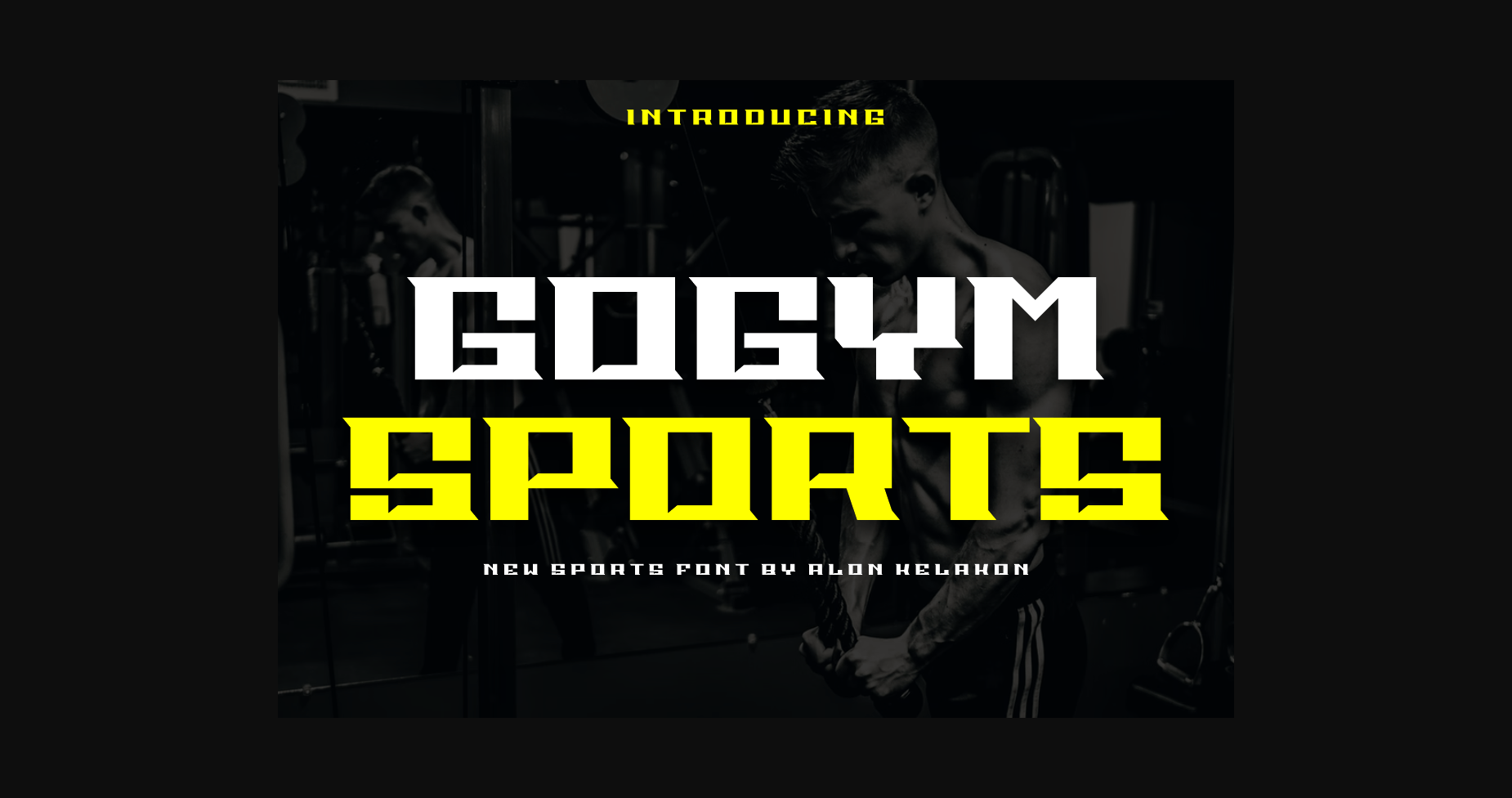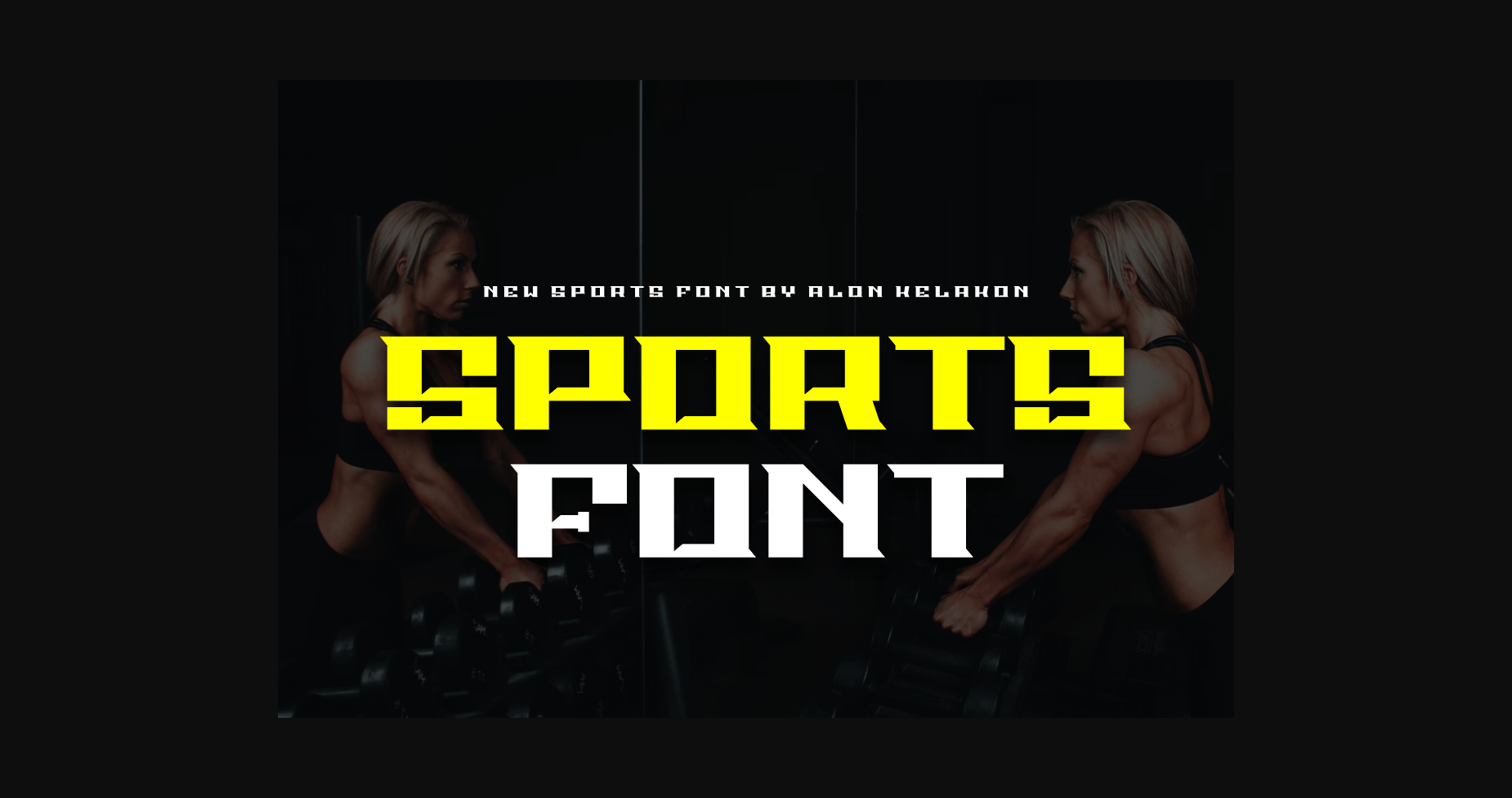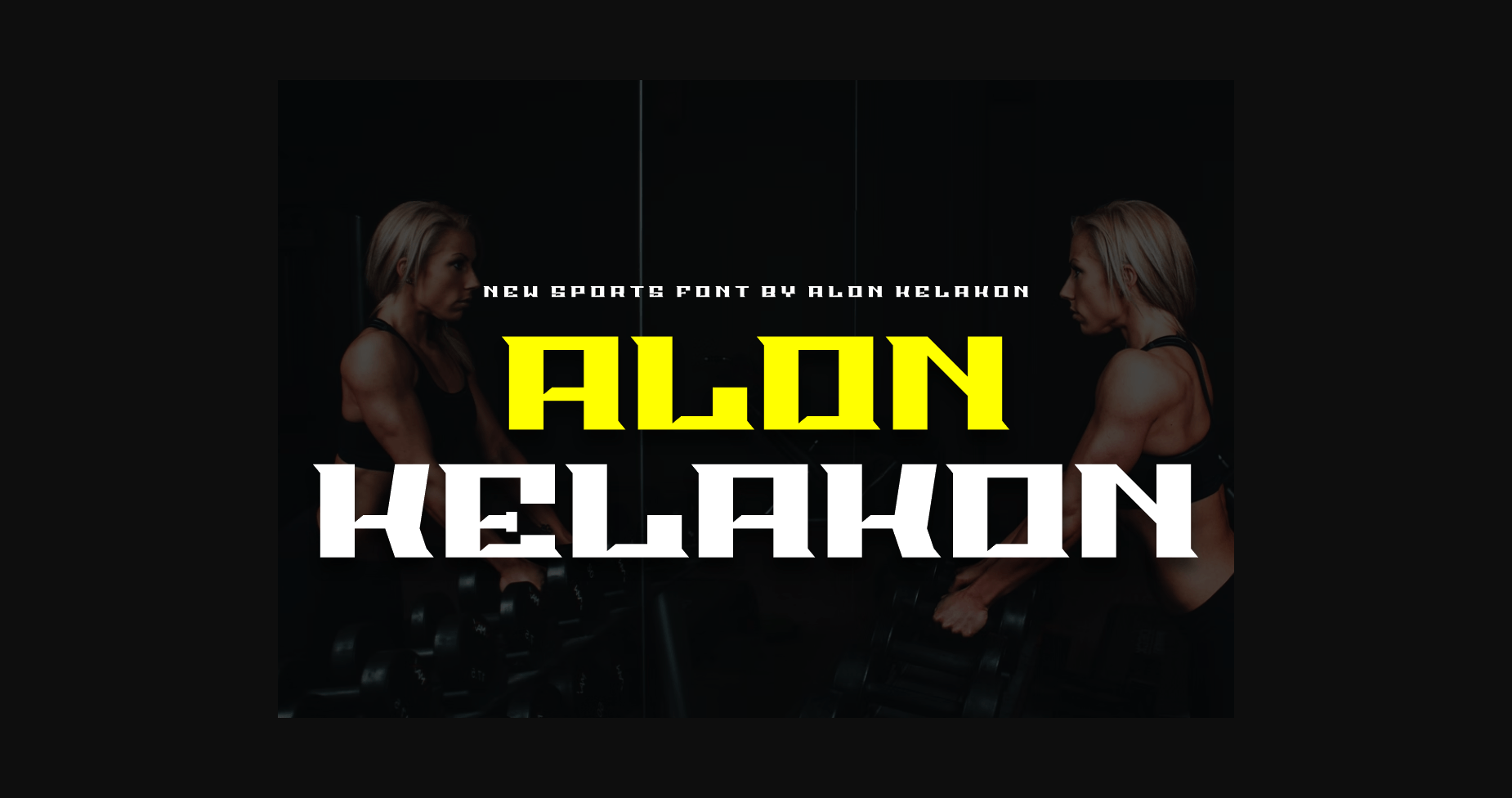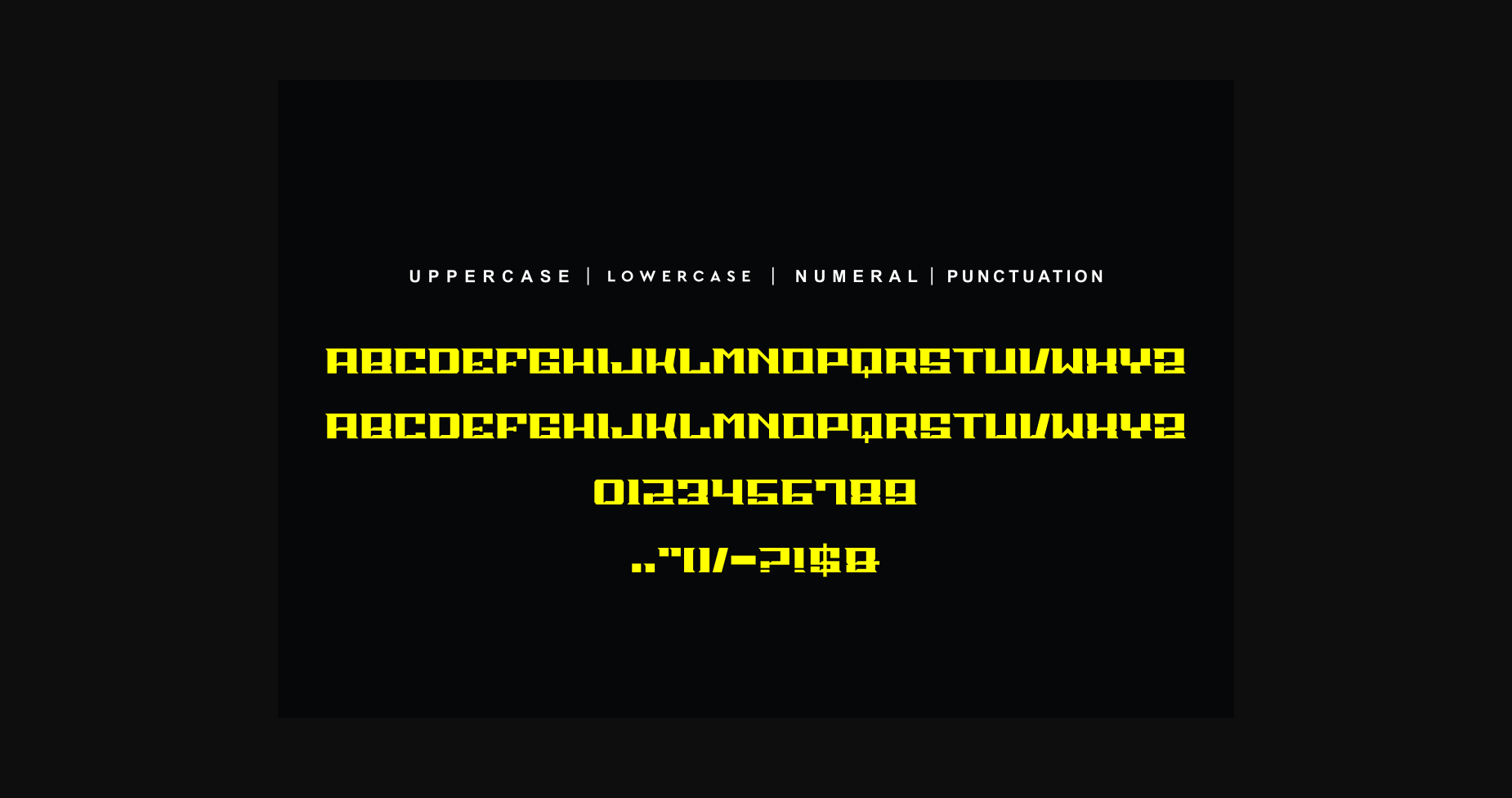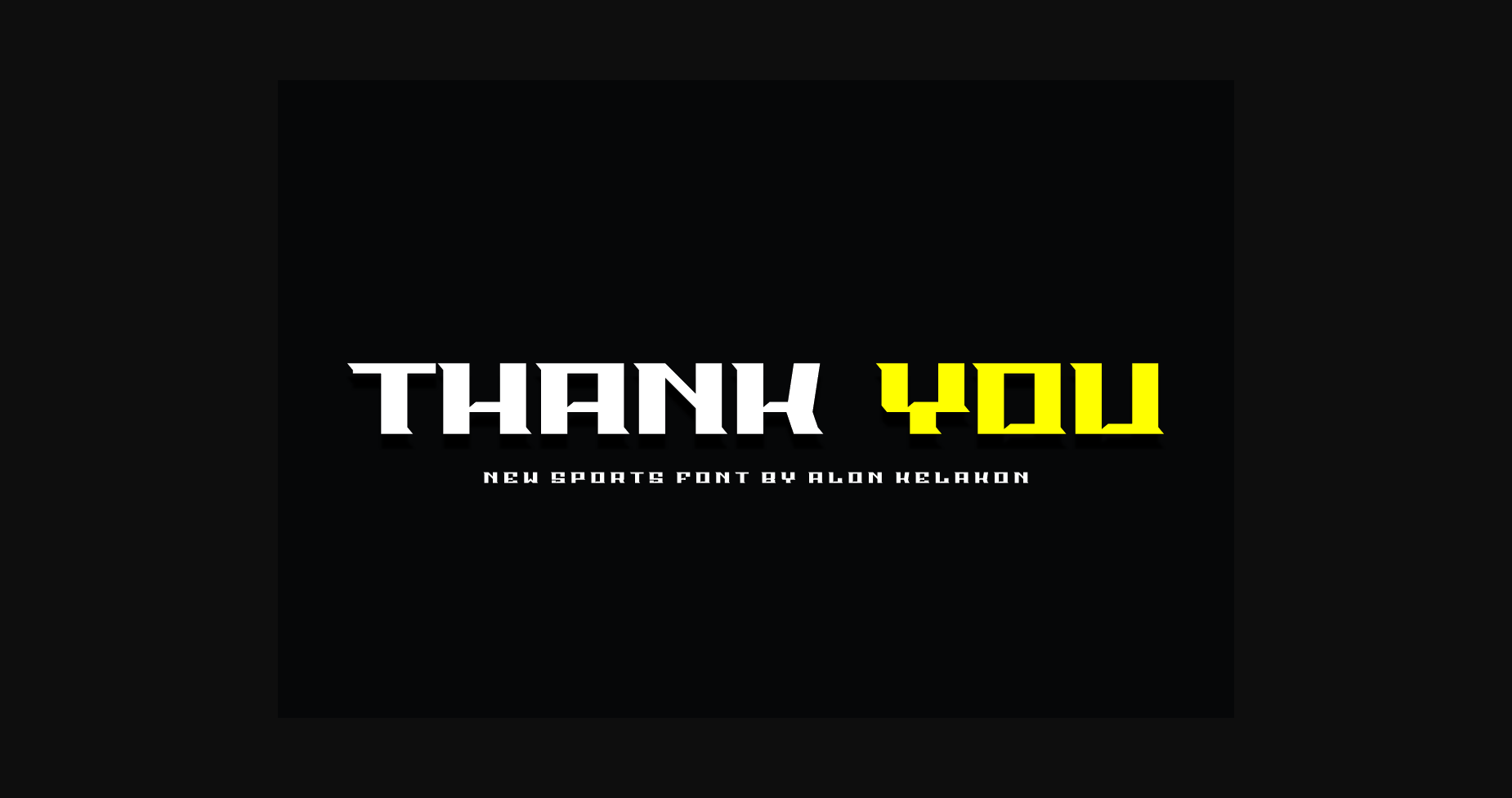
HomeSans Serif FontsGogym Sports Font Sans Serif Fonts Gogym Sports Font FacebookXPinterestWhatsApp 1 of 7 ... Gogym Sports Font Poster 2... Gogym Sports Font Poster 3... Gogym Sports Font Poster 4... Gogym Sports Font Poster 5... Gogym Sports Font Poster 6... Gogym Sports Font Poster 7... About Gogym Sports Font Gogym Sports is a modern and cool display font. Whatever the topic, this font will be a wonderful asset to your font library, as it has the potential to enhance any creation. DOWNLOAD NOW People also explored Ambition & Ink Font Ottama Font Georgina Stella Font Gothic Extra Bold Font Belovely Font Happy Happiness Font Abigaila Delinta Font Fountaine Font Dharma Slab M 288 0 TagsGogym Sports Font Previous articleRoways FontNext articleJust for a While Font LEAVE A REPLY Cancel reply Comment: Please enter your comment! Name:* Please enter your name here Email:* You have entered an incorrect email address! Please enter your email address here Website: Save my name, email, and website in this browser for the next time I comment. Personal Use Free Unispace Personal Use Free Read more about this font Austin Personal Use Free Read more about this font Super Discount Personal Use Free Read more about this font Barokah Personal Use Free Read more about this font BLOG Free vs Paid Fonts: Why Investing in Premium Fonts Is Worth It Free vs Paid Fonts: Why Premium Fonts Are Worth It in 2025 The debate of free vs paid fonts continues in the design world. While... Free Fonts Risk: Why Free Fonts Can Be Dangerous for Designers Top 7 Google Fonts Alternatives for Faster and Privacy-Friendly Web Design (2025) Exploring Font Trends